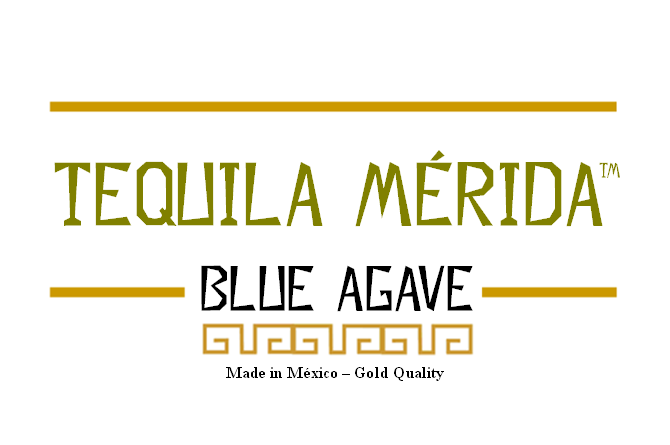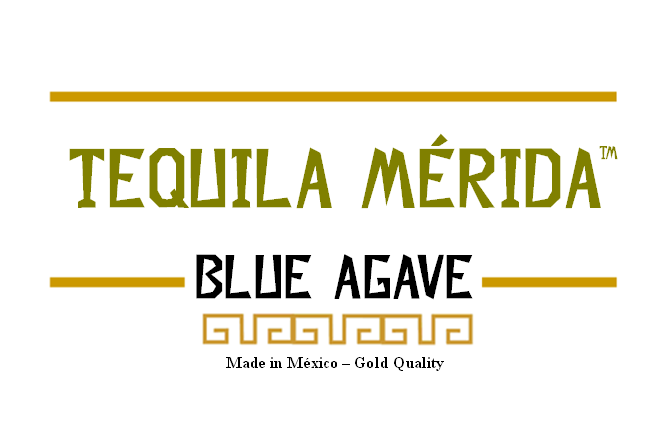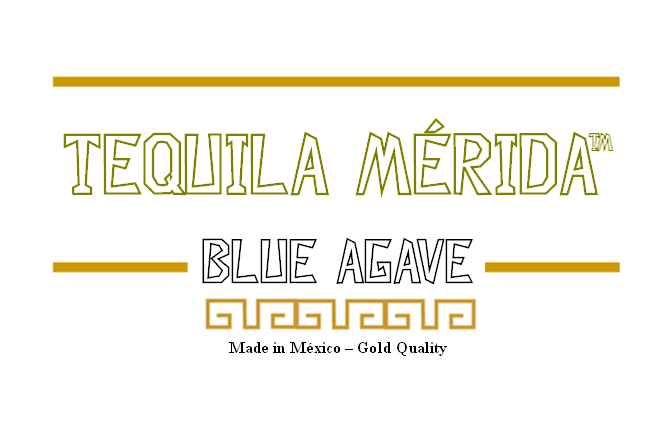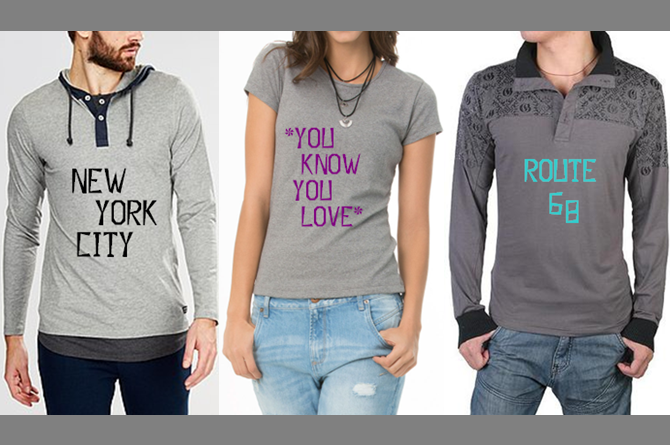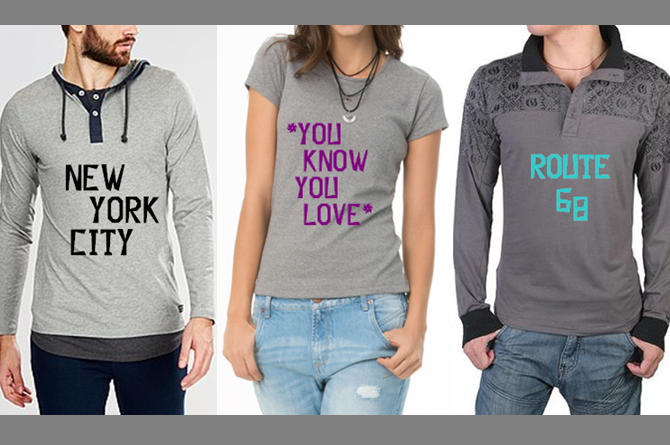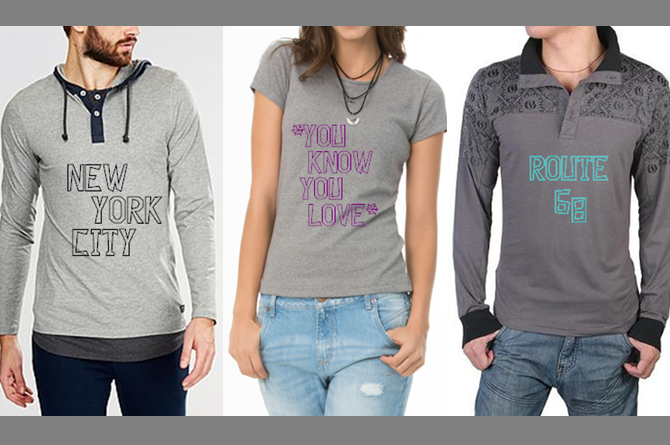
The Descuadrado Font: A Designer’s New Best Friend?
I’ll never forget the time I was working on a project for a client who wanted a bold, modern look. I spent hours scouring the internet for the perfect font, but nothing seemed quite right. That was until I stumbled upon the Descuadrado font. This unsquared font has become a staple in my design toolkit, and I’m excited to share my experience with you.
What is Descuadrado Font?
Descuadrado is a unique font that comes in three different types: Regular, Bold, and Hollow (Outline). Its unsquared design makes it perfect for adding a touch of modernity to any project. Whether you’re a designer, crafter, or creative hobbyist, Descuadrado is definitely worth checking out.
My Honest Review
So, what do I love about Descuadrado? Here are a few things:
- ✨ Unique design: The unsquared design of Descuadrado makes it stand out from other fonts.
- ✅ Versatility: With three different types to choose from, Descuadrado can be used for a wide range of projects.
- 💯 Legibility: Despite its unique design, Descuadrado is surprisingly legible, even at smaller sizes.
Of course, no font is perfect, and Descuadrado has a few small quirks:
- 🤔 Limited use cases for Hollow version: While the Hollow version is great for adding a touch of whimsy to a design, it may not be suitable for body text or other applications where legibility is key.
- ⚠️ May not work well with certain backgrounds: As with any outline font, the Hollow version of Descuadrado may not work well with busy or dark backgrounds.
The Descuadrado font was designed with the modern designer in mind. Its unique, unsquared design is perfect for adding a touch of personality to any project. According to the designer, Descuadrado was inspired by the geometric shapes and clean lines of modern architecture.
| Author | Jaime Rangel Castro |
| What is the Descuadrado font? | Descuadrado is an unsquared font that comes in three different types: Regular, Bold, and Hollow (Outline). |
| Is Descuadrado suitable for body text? | While Descuadrado is legible, it may not be the best choice for body text due to its unique design. However, the Regular and Bold versions can be used for body text in certain contexts. |